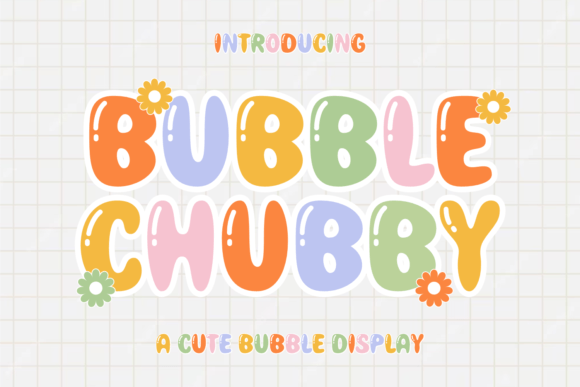
Adenman Posted Tuesday at 07:23 AM Share Posted Tuesday at 07:23 AM Bubble Chubby is a fun and playful typeface characterized by its chubby and rounded letterforms, reminiscent of bubbles. This font exudes a sense of lightheartedness and whimsy, making it perfect for projects that require a cheerful and youthful aesthetic. It works well for headlines, logos, branding materials, posters, banners, and more, adding a touch of personality and charm to any project. Compatibility: windows & apple/mac & linux Giveaway Link –> https://www.creativefabrica.com/product/bubble-chubby/ flash13, vhick, phen0men4 and 1 other 4 Quote Link to comment Share on other sites More sharing options...